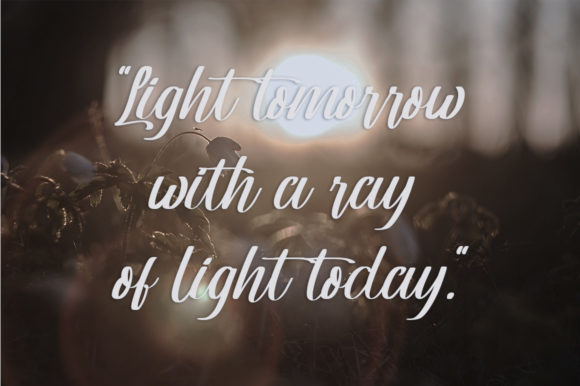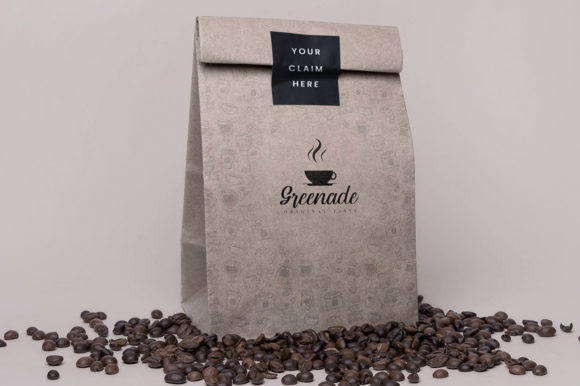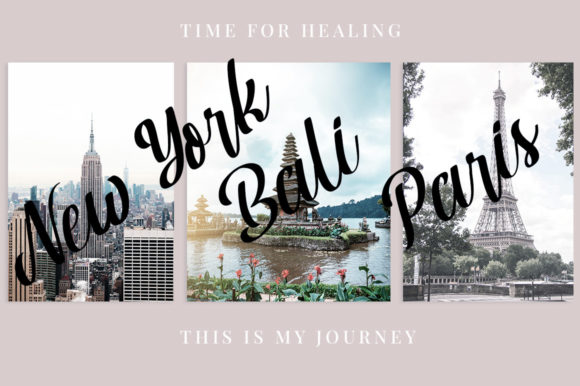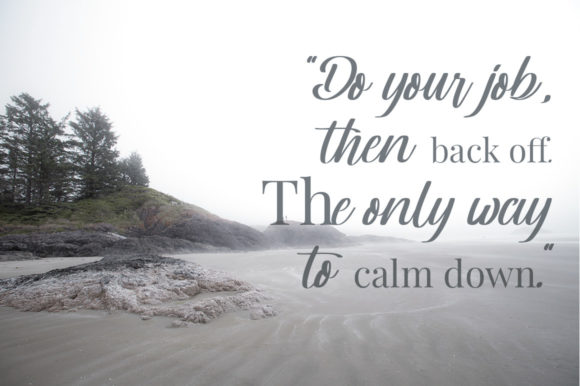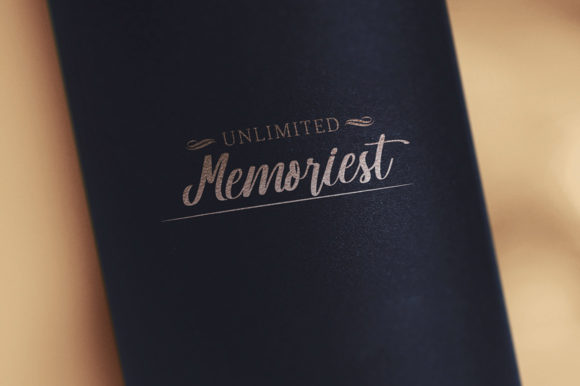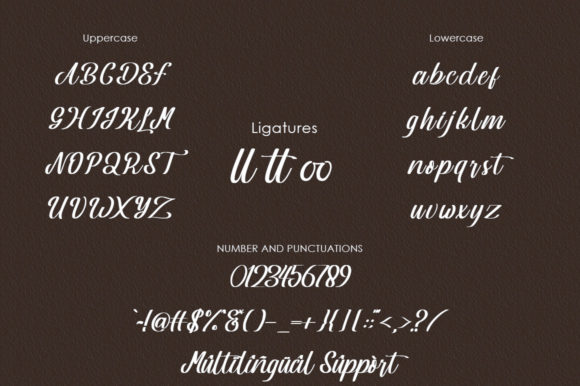
Introduction to Damarwulan Font
Damarwulan is a well-balanced and delicate script font.
It is suitable for any projects such as: logos, branding projects, label, photography, watermark, special events, and all your other lovely projects that need a beautiful script taste .
Key Features of Damarwulan Font